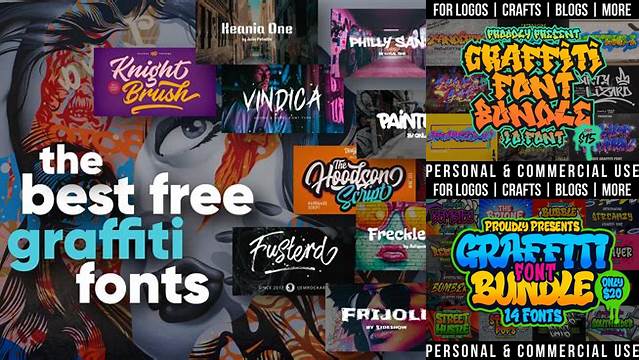
Free Graffiti Fonts For Commercial Use
Hey guys! Ever needed that perfect, edgy graffiti font for your project but didn't want to deal with licensing headaches? You're in the right place! Let's dive into the world of commercial free graffiti fonts, where creativity meets accessibility. We'll explore everything from where to find them to how to use them effectively. So buckle up, let's get started!
1. Understanding Commercial Free Licenses
Before we jump into specific fonts, let's make sure we're all on the same page about what "commercial free" actually means. When we talk about commercial free graffiti fonts, we're referring to fonts that you can use in projects that you intend to make money from. This is different from personal use licenses, which only allow you to use the font for non-profit projects, like a birthday invitation or a school project. Understanding the nuances of different licenses is crucial to avoid any legal trouble down the road. Commercial free licenses typically come in a few forms, such as the SIL Open Font License (OFL) or public domain licenses. The OFL allows you to use, modify, and distribute the font, even for commercial purposes, as long as you adhere to the license terms, which usually include keeping the license file intact and crediting the original author. Public domain fonts, on the other hand, have no restrictions whatsoever. You can use them however you like, without any attribution required. So, always double-check the license agreement before using any commercial free graffiti fonts to ensure you're compliant. Knowing this upfront can save you a lot of headaches and potential legal issues down the line.
2. Best Websites for Free Graffiti Fonts
Finding high-quality commercial free graffiti fonts can feel like searching for a needle in a haystack, but don't worry, we've got you covered! There are several fantastic websites where you can discover a treasure trove of amazing fonts for your projects. Some of the top resources include websites like DaFont, FontSpace, and Google Fonts. These platforms offer a vast selection of fonts, many of which come with commercial use licenses. However, it's super important to pay close attention to the specific license attached to each font. DaFont, for example, is a huge repository, but not all fonts are free for commercial use. You’ll need to filter your search or carefully read the license information provided by the font designer. FontSpace is another excellent option, offering a user-friendly interface and a clear indication of the license type for each font. Google Fonts is a goldmine for commercial free graffiti fonts as everything there is open source, typically under the OFL. This means you can use them in any project, personal or commercial, without worrying about royalties or licensing fees. Remember to always download fonts from reputable sources to avoid malware or other security risks. And guys, don't forget to back up your font library! You never know when you might need that perfect graffiti font for your next project.
3. Top 10 Commercial Free Graffiti Fonts
Alright, let’s get to the juicy part – the fonts themselves! Finding the perfect commercial free graffiti fonts can really elevate your design, and we've compiled a list of 10 awesome options to get you started. First up is Urban Jungle, a bold and rugged font that screams street art. It’s perfect for posters, flyers, and anything that needs an edgy vibe. Next, we have Spray Paint, which, as the name suggests, mimics the look of fresh spray paint on a wall. This one’s great for adding a raw, authentic feel to your projects. Then there’s Bombing, a chunky, high-impact font that’s ideal for headlines and titles. Graffito offers a more refined, almost calligraphic take on graffiti, making it versatile for a range of designs. Don't forget Streetwise, a font that’s both legible and stylish, perfect for longer text blocks where readability is key. Moving on, Riot Act is a distressed, stencil-style font that adds a rebellious touch. Tag Marker is a handwritten-style font that feels personal and authentic, great for adding a human touch. Blockbuster is a bold, blocky font that demands attention, perfect for making a statement. Wildstyle is an intricate, almost illegible font that’s pure graffiti art, best used sparingly for visual flair. And last but not least, Spraycan is another fantastic spray paint-inspired font that offers a slightly different texture and feel. Each of these commercial free graffiti fonts brings its unique flavor to the table, so experiment and see which ones best suit your project’s needs. Remember to check the specific license terms for each font, even though they’re generally free for commercial use, just to be on the safe side!
4. Using Graffiti Fonts in Logos
Using commercial free graffiti fonts in logos can give your brand a unique and edgy identity, especially if your target audience is into street culture, art, or urban lifestyle. Imagine a logo for a skateboard shop, a music venue, or an urban clothing brand – a graffiti font can instantly convey the right vibe. However, designing a logo with graffiti fonts requires a careful approach. First and foremost, consider readability. While the wild, intricate styles of some graffiti fonts can look amazing, they might not translate well at smaller sizes or in different contexts. Your logo needs to be recognizable and legible, whether it’s on a business card, a website, or a billboard. Opt for commercial free graffiti fonts that strike a balance between style and clarity. Think about using bolder, cleaner fonts for the main brand name and more stylized fonts for secondary elements. Color is another crucial factor. Graffiti art is often vibrant and colorful, but your logo might need to work in black and white or a limited color palette. Experiment with different color combinations to see what works best for your brand. Also, consider the overall aesthetic of your brand. Does the graffiti font align with your brand’s personality and values? A graffiti font might not be the best choice for a high-end law firm, but it could be perfect for a street art collective. Finally, remember to check the licensing terms of your chosen font. Even commercial free graffiti fonts might have specific requirements, such as attribution. Make sure you comply with the license to avoid any legal issues down the road. A well-designed logo using a graffiti font can make a powerful statement, so take your time and get it right!
5. Graffiti Fonts for Posters and Flyers
When it comes to posters and flyers, commercial free graffiti fonts can be a game-changer, instantly grabbing attention and setting the tone for your event or message. Graffiti fonts have an innate ability to convey energy, rebelliousness, and a raw, urban aesthetic, making them perfect for promoting concerts, art shows, street festivals, and more. The key to using these fonts effectively is to balance the edgy style with readability. A poster or flyer's primary goal is to communicate information clearly, so while you want to capture attention with a cool font, you also need to ensure that your audience can easily read the details. For headlines and titles, bold and striking commercial free graffiti fonts work wonders. These fonts can make a statement and create a visual hierarchy that draws the eye. However, for body text or smaller details, opt for more legible fonts that complement the graffiti style. Mixing and matching fonts can create a dynamic and visually appealing design, but be careful not to overdo it – too many fonts can make your poster look cluttered and confusing. Color is another critical element. Graffiti art is often vibrant and colorful, and you can use this to your advantage in your poster design. Experiment with bold color combinations and contrasts to make your message pop. Consider the background as well – a gritty texture or urban-themed image can enhance the overall graffiti aesthetic. Remember, the goal is to create a poster that not only looks cool but also effectively communicates your message. So, choose your commercial free graffiti fonts wisely and use them in a way that captures attention and conveys your message loud and clear.
6. Using Graffiti Fonts in Social Media Graphics
Social media is a visual playground, and using commercial free graffiti fonts in your graphics can help you stand out from the crowd. Whether you're creating eye-catching Instagram posts, attention-grabbing Facebook ads, or engaging Twitter headers, graffiti fonts can add a unique and edgy flair to your content. The key to success is understanding how to use these fonts effectively in the fast-paced world of social media. First off, consider the platform. Each social media platform has its own visual style and audience expectations. What works on Instagram might not work on LinkedIn. Tailor your graphics and font choices to the specific platform and your target audience. Readability is crucial in social media graphics. People scroll through their feeds quickly, so you have just a few seconds to grab their attention. Choose commercial free graffiti fonts that are bold and legible, especially for headlines and key messages. Avoid overly intricate or stylized fonts that might be difficult to read on smaller screens. Use contrast to your advantage. Pair your graffiti font with a clean and simple background to make the text pop. Experiment with different color combinations to create visually striking graphics that stand out in the feed. Think about the overall aesthetic of your brand. Your social media graphics should be consistent with your brand's personality and style. If you're using graffiti fonts, make sure they align with your brand's message and values. Finally, remember to optimize your graphics for mobile. Most social media users access content on their smartphones, so your graphics need to look good on smaller screens. Use high-resolution images and ensure that your text is readable on mobile devices. Commercial free graffiti fonts can be a powerful tool for social media marketing, but it's essential to use them strategically. By choosing the right fonts, colors, and layouts, you can create graphics that grab attention, communicate your message effectively, and help you achieve your social media goals.
7. Pairing Graffiti Fonts with Other Fonts
Mastering the art of pairing commercial free graffiti fonts with other fonts can take your designs from good to great. While graffiti fonts are bold and expressive, they often work best when combined with simpler, more legible fonts. The key is to create a visual hierarchy that guides the viewer's eye and ensures that your message is clear. Think of graffiti fonts as the rock stars of typography – they're attention-grabbing and full of personality. But like any good band, they need a solid supporting cast. Pairing a graffiti font with a clean sans-serif font, such as Helvetica or Arial, can create a striking contrast that draws attention to the headline while keeping the body text readable. Alternatively, a classic serif font like Times New Roman or Garamond can add a touch of sophistication to your design, balancing the edginess of the graffiti font with a sense of tradition. When choosing fonts to pair with commercial free graffiti fonts, consider the overall tone and style of your project. If you're designing a poster for a hip-hop concert, you might pair a bold graffiti font with a modern sans-serif font to create a sense of energy and excitement. If you're designing a logo for an urban art gallery, you might combine a stylized graffiti font with a classic serif font to convey a sense of creativity and elegance. Experiment with different font pairings to see what works best for your project. Try combining different font weights, sizes, and styles to create visual interest. But remember, less is often more. Stick to a maximum of two or three fonts in your design to avoid visual clutter. A well-chosen font pairing can enhance the impact of your graffiti font and create a design that's both stylish and effective.
8. Licensing Considerations for Graffiti Fonts
Navigating the world of font licensing can be tricky, especially when dealing with commercial free graffiti fonts. While the term "commercial free" suggests that you can use a font in any project, it's crucial to understand the specific licensing terms attached to each font. Different licenses offer different levels of freedom and have varying requirements. One of the most common licenses you'll encounter is the SIL Open Font License (OFL). This license allows you to use, modify, and distribute the font, even for commercial purposes, as long as you adhere to the terms of the license. Typically, this means keeping the license file intact and crediting the original author. Another type of license is the Creative Commons license, which offers a range of options from allowing commercial use with attribution to restricting commercial use altogether. Some fonts are released under a public domain license, which means they have no restrictions whatsoever. You can use them in any project, commercial or non-commercial, without attribution. However, it's always a good idea to double-check the license to ensure that it truly is in the public domain. When downloading commercial free graffiti fonts, always read the license agreement carefully before using the font in your projects. Pay attention to any restrictions or requirements, such as attribution or limitations on modification. If you're unsure about the terms of a license, it's best to contact the font designer or the website where you downloaded the font for clarification. Using a font without the proper license can lead to legal issues, so it's always better to be safe than sorry. By understanding the different types of font licenses and taking the time to read the fine print, you can ensure that you're using commercial free graffiti fonts legally and ethically.
9. Creating Your Own Graffiti Font
Ever thought about creating your own commercial free graffiti fonts? It's a fantastic way to add a personal touch to your designs and develop a unique typographic style. While it might seem daunting at first, with the right tools and techniques, anyone can create their own graffiti font. The first step is to gather inspiration. Look at existing graffiti art, street signs, and other examples of urban typography. Pay attention to the shapes, lines, and textures that make graffiti fonts so distinctive. Experiment with different styles, from bold and blocky to intricate and flowing. Next, you'll need to choose your tools. You can create your font digitally using software like Adobe Illustrator, FontLab Studio, or Glyphs. Alternatively, you can start with hand-drawn sketches and then digitize them using a scanner or a drawing tablet. If you're using digital tools, start by creating a basic character set, including uppercase and lowercase letters, numbers, and punctuation marks. Use vector graphics software to create clean, scalable shapes. Pay attention to consistency – try to maintain a similar style and weight across all characters. If you're working with hand-drawn sketches, scan them into your computer and use tracing tools in your graphics software to create vector outlines. Once you've created your basic character set, you can start adding unique graffiti-inspired details, such as drips, splatters, and rough edges. Experiment with different textures and effects to give your font a realistic graffiti look. Finally, you'll need to convert your artwork into a usable font file. Software like FontLab Studio and Glyphs allows you to import your vector graphics and create a fully functional font. You'll need to define the kerning and spacing between characters and generate font files in formats like OTF or TTF. Creating your own commercial free graffiti fonts takes time and effort, but it's a rewarding process that can result in a truly unique and personalized typeface. Plus, you'll have full control over the licensing, allowing you to share your font with others for commercial use.
10. The History of Graffiti Fonts
The history of commercial free graffiti fonts is intertwined with the history of graffiti art itself, a vibrant and rebellious form of expression that has evolved from underground subculture to mainstream art form. Graffiti's roots can be traced back to ancient times, with examples of wall writings and drawings found in ancient Egypt, Greece, and Rome. However, the modern graffiti movement emerged in the late 1960s and early 1970s in New York City, where young artists began tagging their names or "tags" on walls, subway cars, and other public surfaces. These early tags were often simple and stylized, using bold, blocky letters that were easy to read and quick to write. As graffiti culture evolved, artists began experimenting with more elaborate styles, developing intricate letterforms, colorful designs, and unique techniques. Graffiti fonts became an integral part of this artistic evolution, with artists creating their own custom typefaces that reflected their individual styles and identities. The early graffiti fonts were often hand-drawn and based on existing typefaces, such as block letters, bubble letters, and wildstyle alphabets. However, as technology advanced, artists began using computers and digital tools to create and share their fonts. The rise of the internet and online font repositories made it easier for graffiti artists to distribute their work and for designers to incorporate graffiti fonts into their projects. Today, commercial free graffiti fonts are widely used in graphic design, advertising, and other creative fields. They add a touch of urban edginess and authenticity to designs, conveying a sense of rebellion, creativity, and street culture. The history of graffiti fonts is a testament to the power of artistic expression and the evolution of typography as a dynamic and ever-changing art form. From the simple tags of early graffiti artists to the intricate digital fonts of today, graffiti fonts continue to inspire and influence designers around the world.